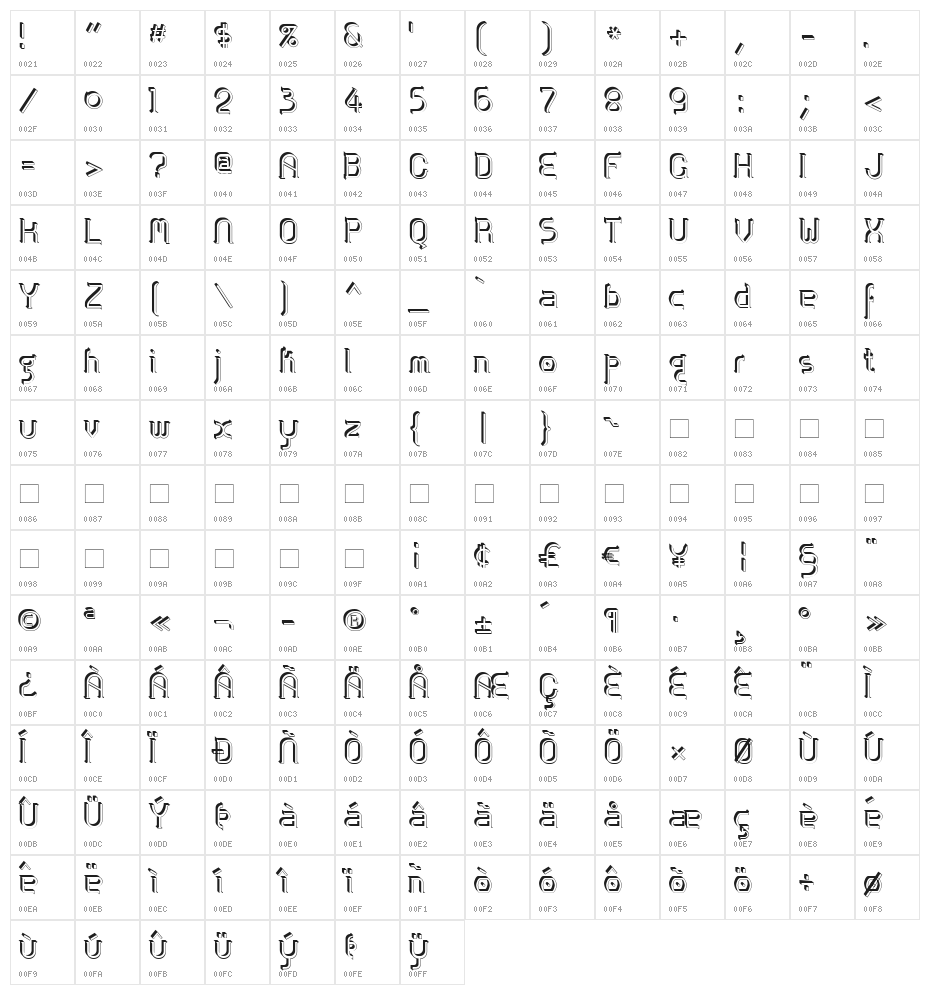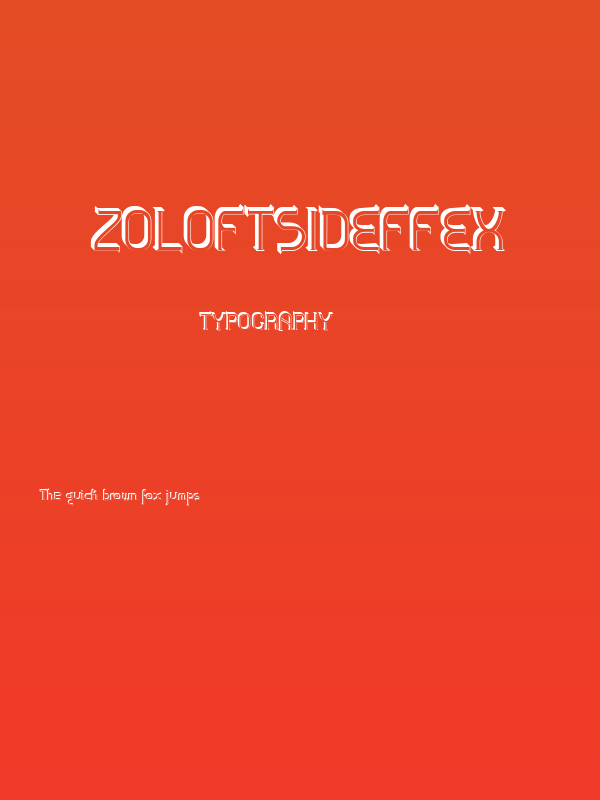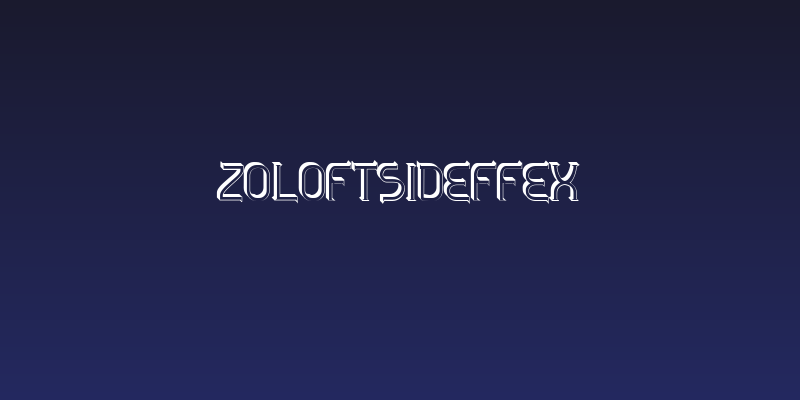
ZoloftSideffex Font
ZoloftSideffex Description
This font features a bold, decorative style with a three-dimensional effect that gives it a unique, eye-catching appearance. The characters are outlined with a shadow-like effect, creating a sense of depth and movement. The uppercase and lowercase letters maintain a consistent style, with sharp angles and geometric shapes that add a modern twist. Numbers and special characters follow the same design principles, ensuring uniformity across all elements. This font's distinct look makes it suitable for projects that require a strong visual impact.
| Proposed Projects | Ideal for posters, logos, headlines, and any design needing a striking visual element. |